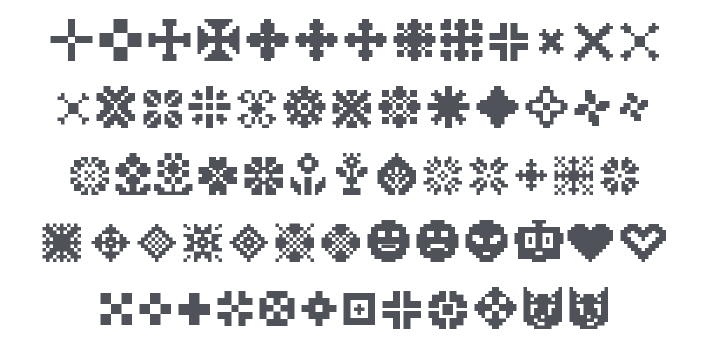
Yarndings Font Family
About Yarndings
Yarndings is an ornamental typeface inspired by a mix of typographic ornamentation, traditional Fair Isle & Nordic knitting patterns, and dingbat fonts from the 1990's.
Each typeface has a “Regular” and “Charted” version, and some include multiple scales so you can fit type on your knits, no matter the project's size.
In this collection, the number following the typeface's name indicates the height of the capital letters for that typeface.
These typefaces were designed with machine knitting in mind, but could be used for hand knitting, needlework, bedazzling, or many other textile crafts.